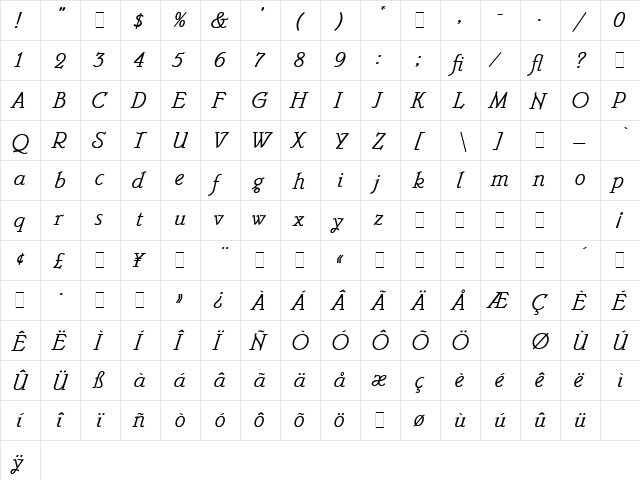
Belwe Mono Italic LET Plain
Design Context for Belwe Mono Italic LET Typeface
Belwe Mono Italic LET brings the precise, column-aligned rhythm of monospaced typography to designs that value technical clarity and systematic order. The slanted form adds forward momentum and visual energy.